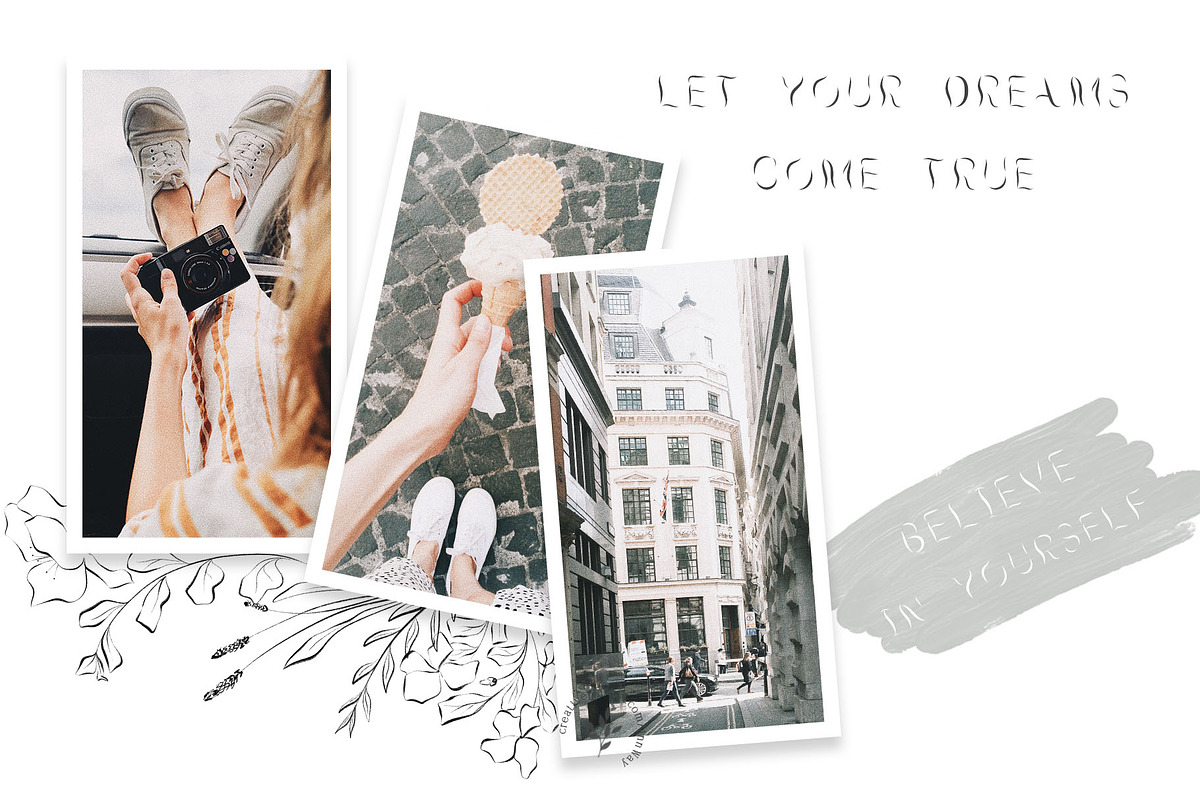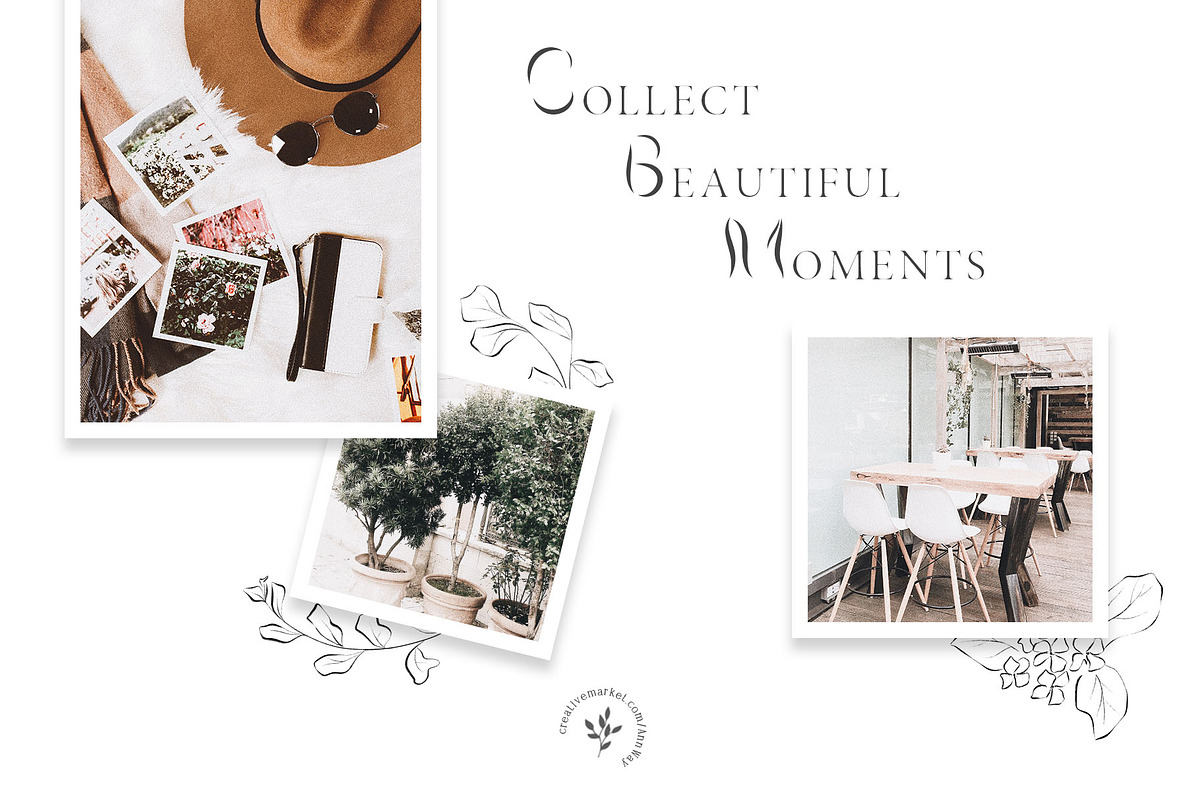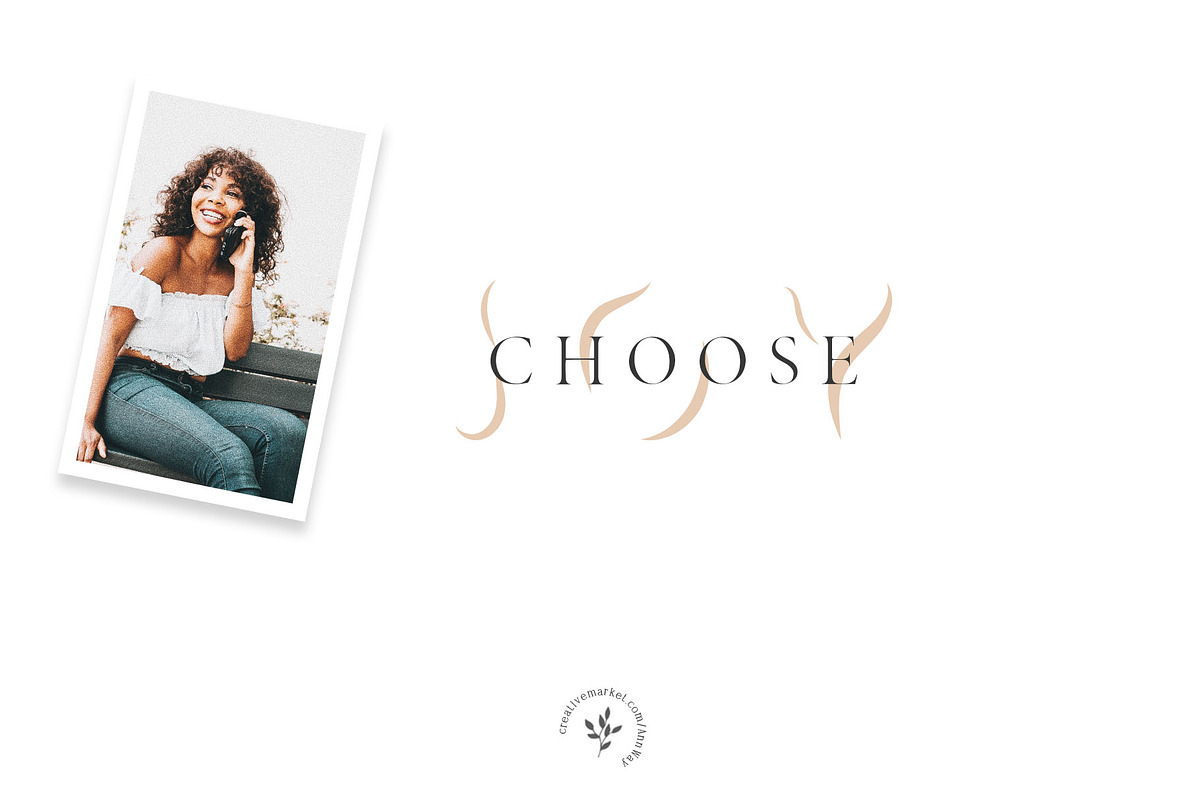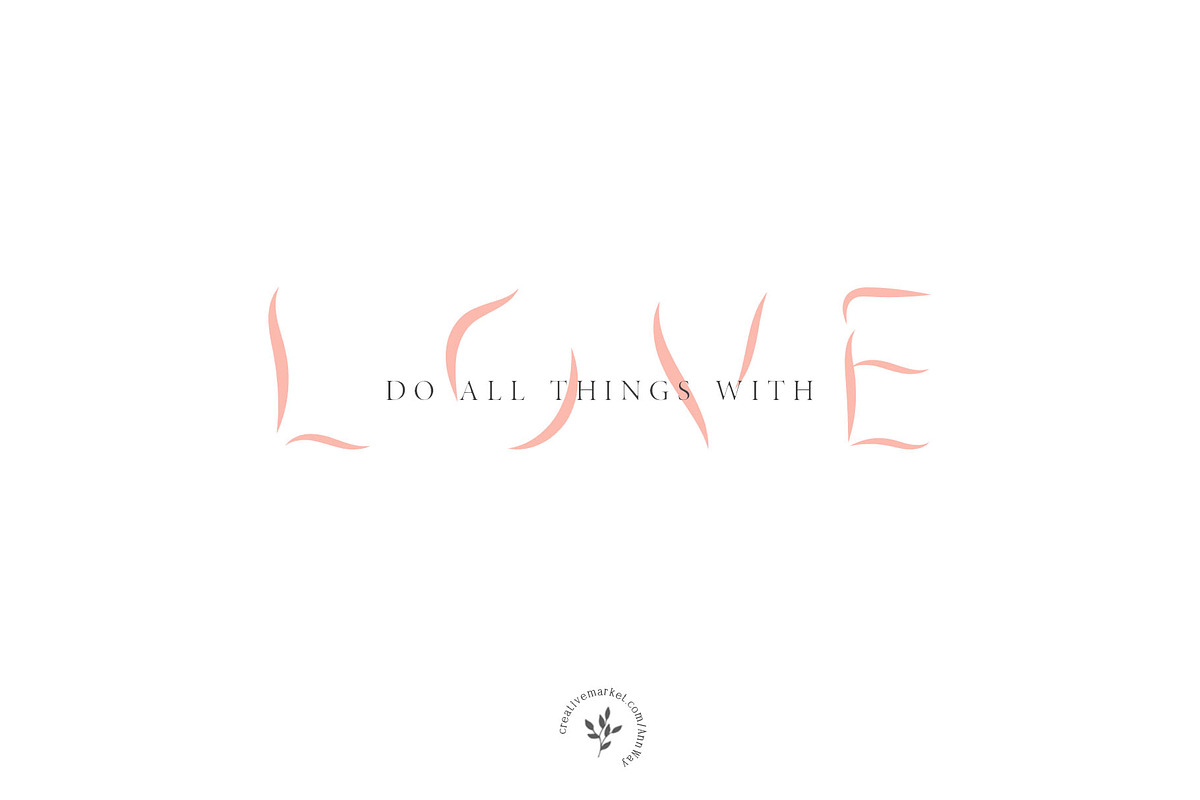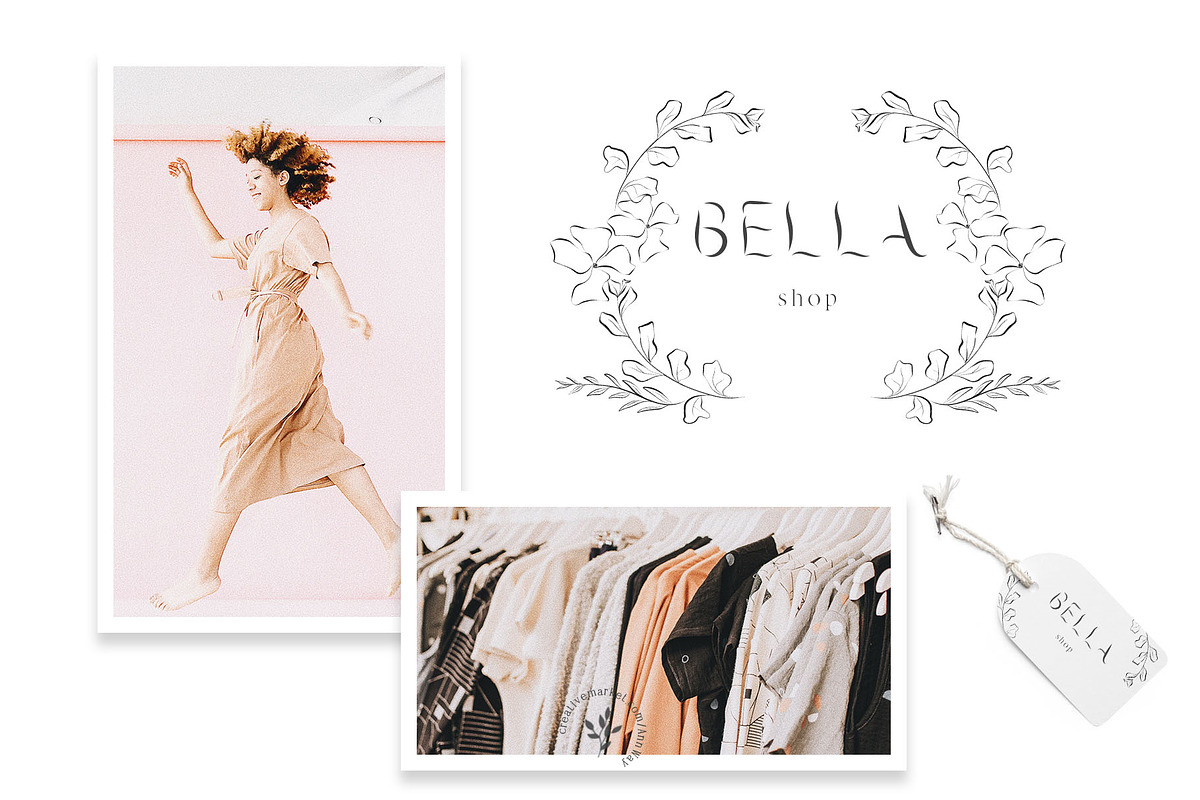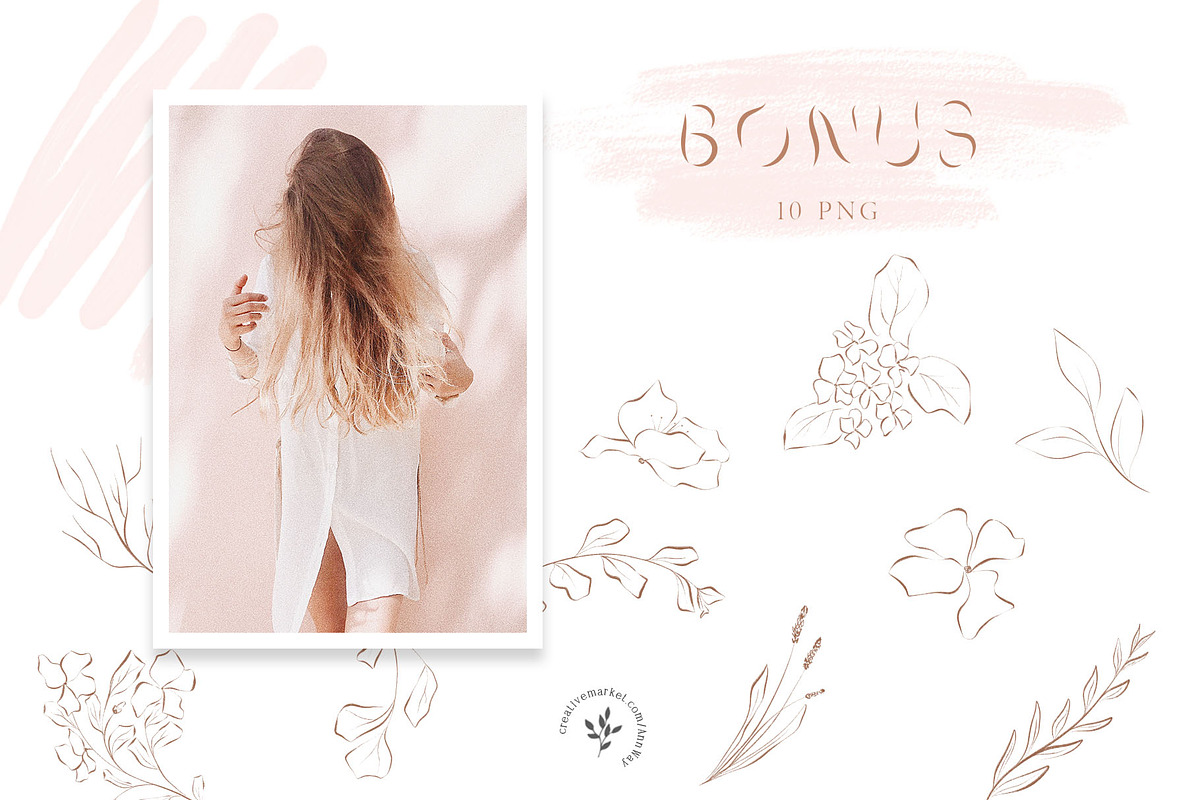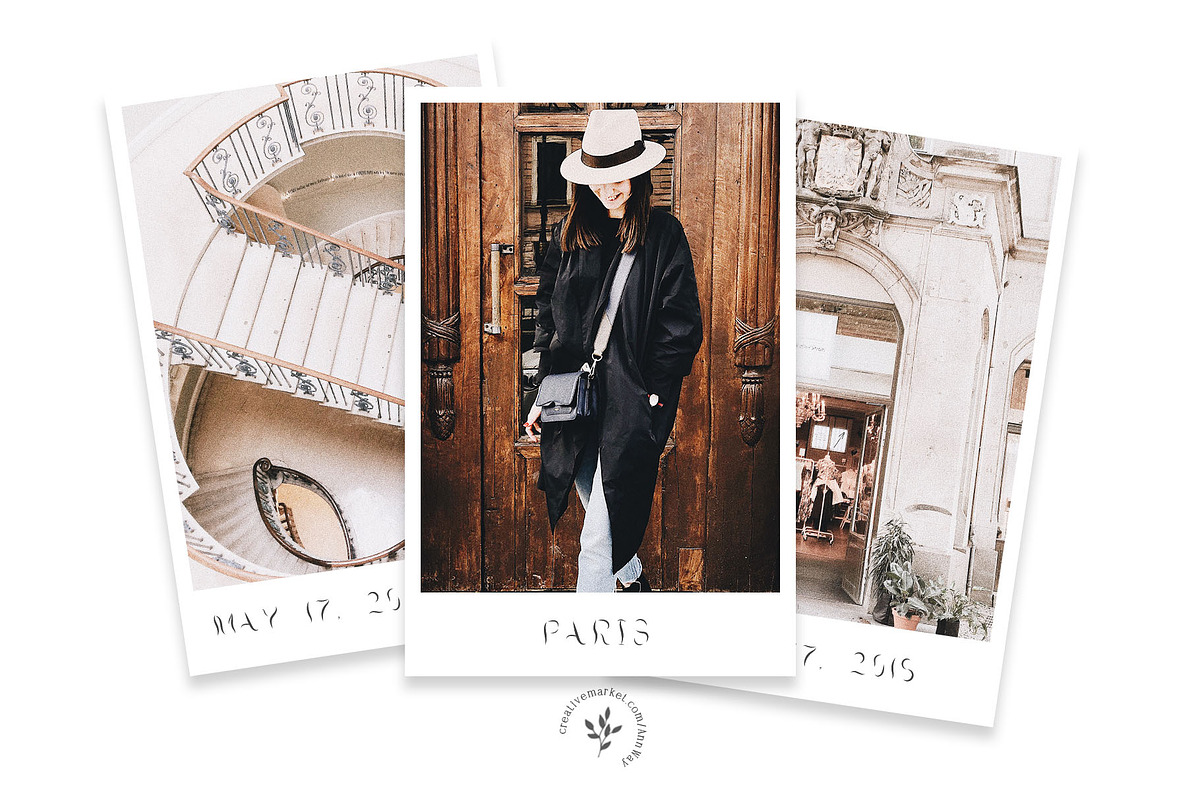
Avola | Font + Bonus
This font is well suited for various design projects, such as logos, advertising, quotes, packaging design and others.
Why Avola | Font + Bonus is worth a look
Avola | Font + Bonus by Blossom fits naturally into Branding, posters, packaging, typography.